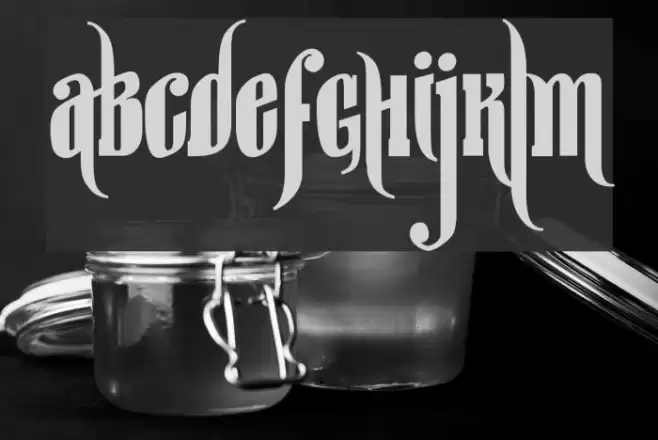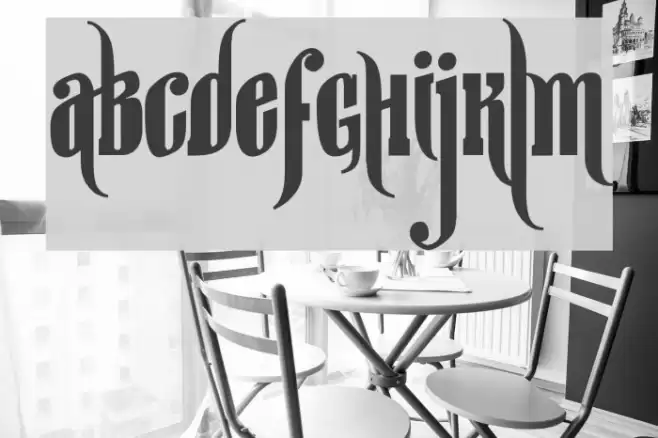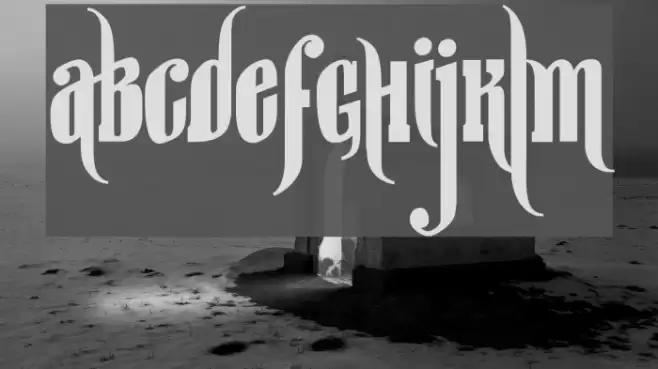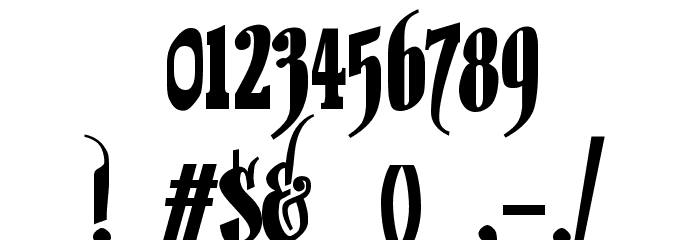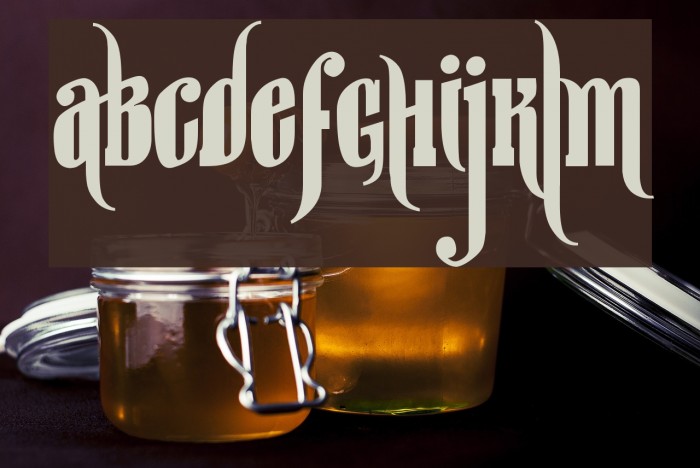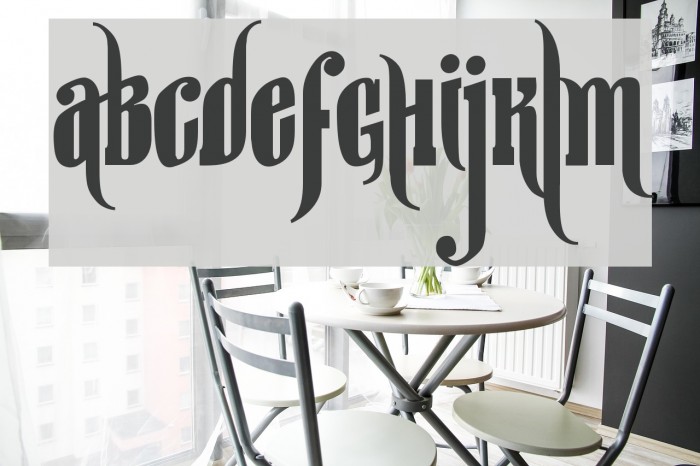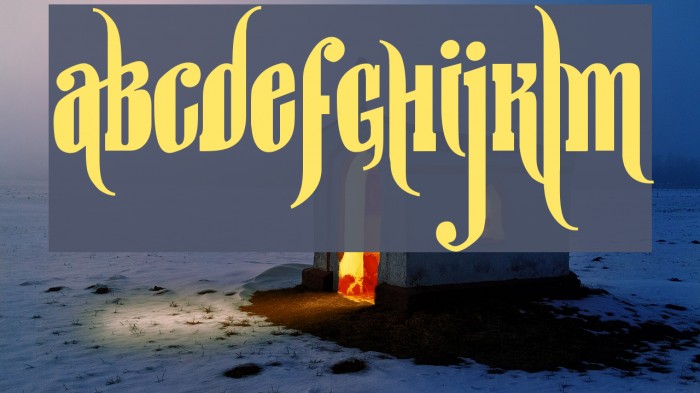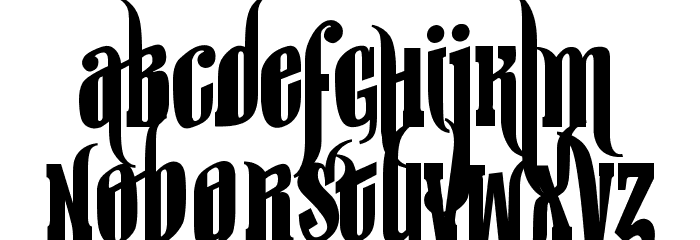
sir william Font
sir william Description
This font features a bold and dramatic style with a strong blackletter influence. The characters are tall and narrow, with sharp, angular lines and pronounced serifs. The uppercase letters are particularly striking, with a gothic flair that adds a sense of grandeur and formality. The lowercase letters maintain the same stylistic elements, creating a cohesive and visually impactful typeface. Numbers and special characters are designed with the same attention to detail, ensuring consistency across all elements. This font is ideal for projects that require a touch of elegance and historical charm.
A bold, blackletter-inspired font with sharp, angular lines and pronounced serifs from Gothic fonts.
- Proposed Projects: Suitable for branding, posters, book covers, and any design requiring a historical or gothic touch.
- Character Spacing: Tight
- Overall Style: Vintage
- Use Case: Logos, Headlines, Decorative text